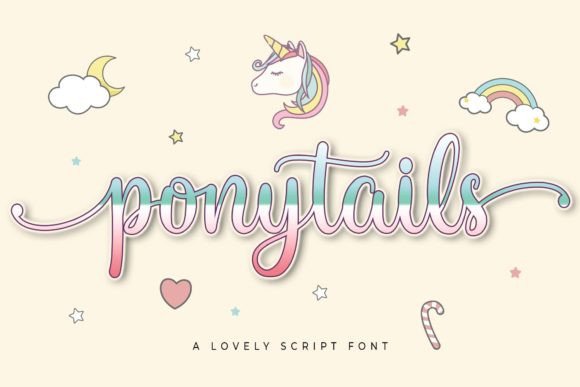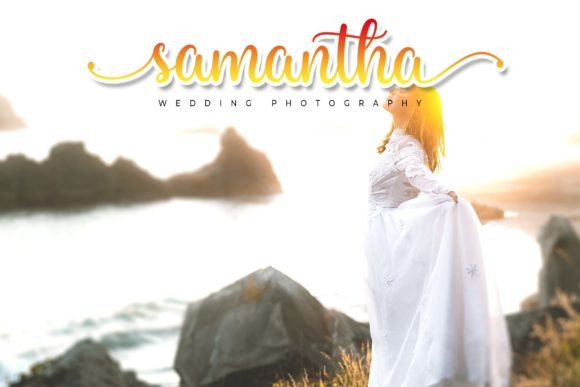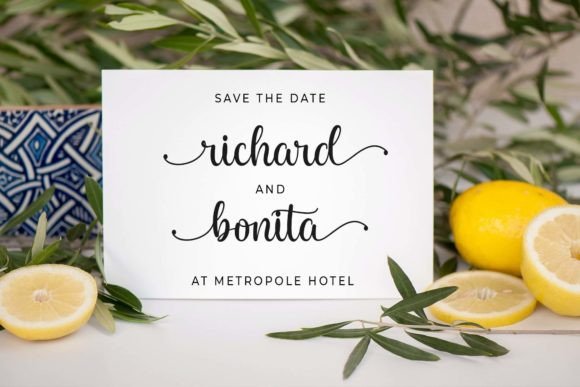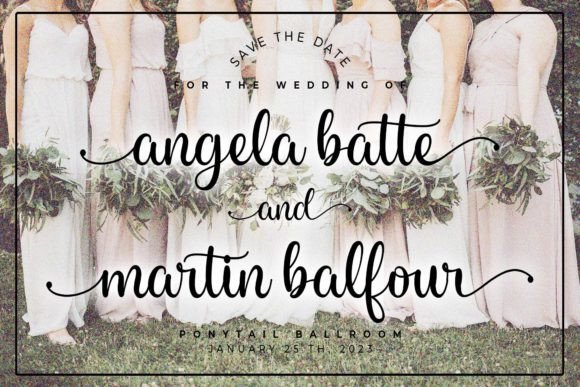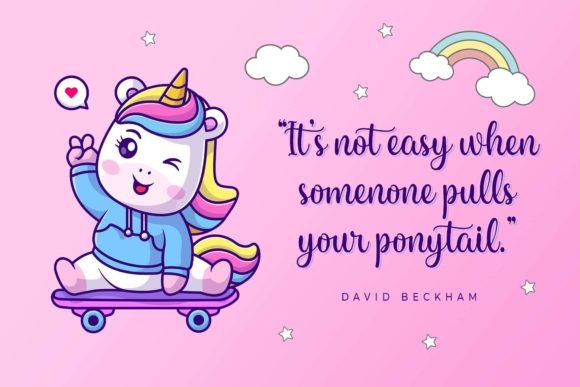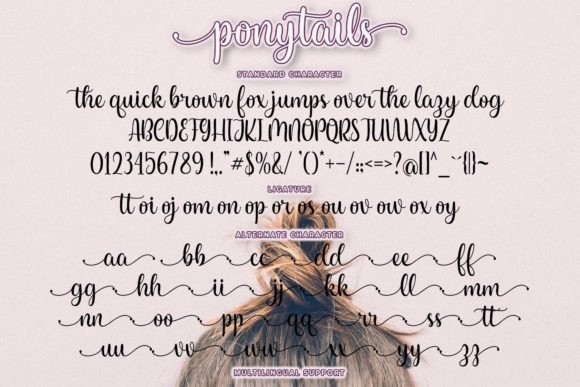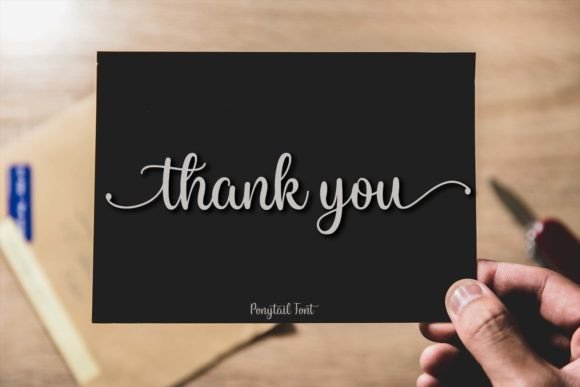
Ponytails Font
Ponytails is a stylish and incredibly elegant handwritten font. It looks stunning on wedding invitations, thank you cards, quotes, greeting cards, logos, business cards, and every other design which needs a handwritten touch. This font is PUA encoded, which means you can access all of the glyphs and swashes with ease!